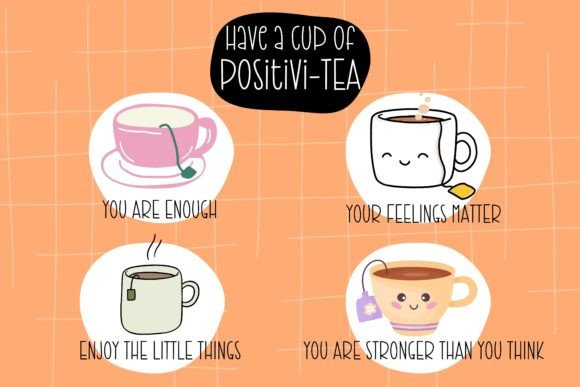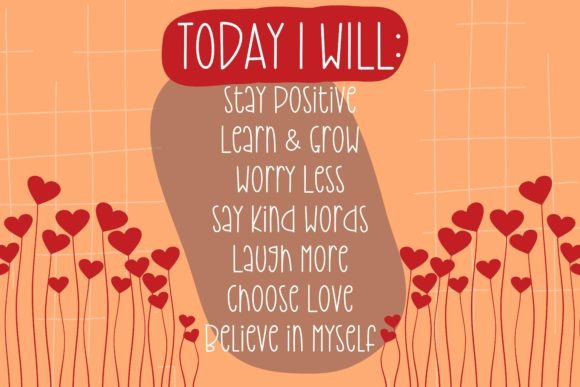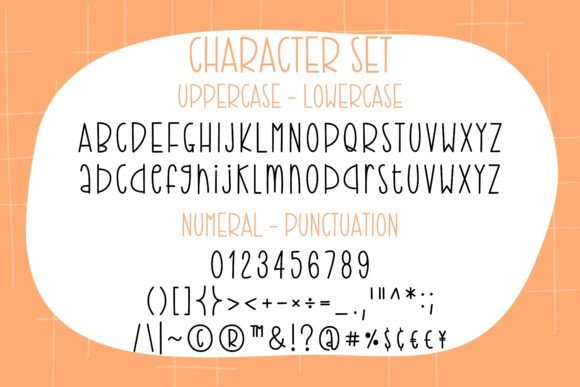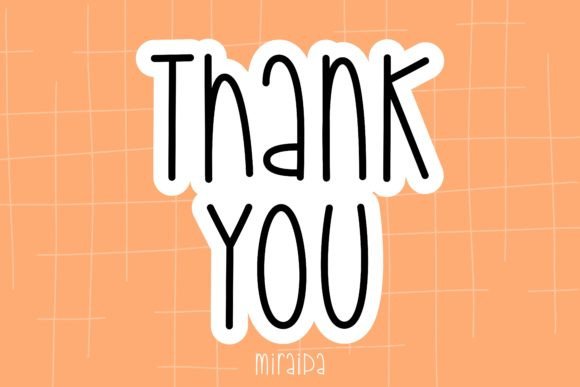
Introducing Awesome Moments Font: Add a Playful Touch to Your Designs
Are you tired of using the same old fonts in your designs? Look no further! Awesome Moments Font is a cute and playful sans serif font that’s sure to bring a smile to your face. Its charming, whimsical, and quirky style makes it perfect for a variety of fun projects. In this article, we’ll explore the features of Awesome Moments Font and how you can use it to take your designs to the next level.
What is Awesome Moments Font?
Awesome Moments Font is a sans serif font designed with a playful and cute style in mind. Its clean lines and rounded edges give it a friendly and approachable feel, making it perfect for designs that require a personal touch. The font is versatile and can be used for a wide range of projects, from party decorations to child-related designs.
Features of Awesome Moments Font
• Cute and Playful Style: Awesome Moments Font is designed to be fun and playful, making it perfect for designs that require a lighthearted touch.
• Sans Serif Font: The font’s clean lines and lack of serifs make it easy to read and versatile for various design applications.
• Charming and Whimsical: The font’s unique style adds a touch of charm and whimsy to any design.
• Quirky and Fun: Awesome Moments Font is perfect for designs that require a bit of personality and flair.
Perfect for Fun Projects
Awesome Moments Font is perfect for a variety of fun projects, including:
• Easter and Spring Designs: Add a playful touch to your Easter and spring designs with Awesome Moments Font.
• Back to School: Make your back to school designs stand out with this fun and playful font.
• Wedding and Party Decorations: Use Awesome Moments Font to create unique and playful wedding and party decorations.
• Halloween and Christmas Designs: Add a touch of whimsy to your Halloween and Christmas designs with this font.
• Posters and Blogs: Use Awesome Moments Font to create eye-catching posters and blog headers.
• Clothing and Child-Related Designs: The font’s playful style makes it perfect for clothing and child-related designs.
• Greeting Cards and Social Media Posts: Use Awesome Moments Font to add a personal touch to your greeting cards and social media posts.
Why Use Awesome Moments Font?
There are many reasons why you should add Awesome Moments Font to your font library:
• Unique Style: The font’s unique style will set your designs apart from the rest.
• Versatility: Awesome Moments Font can be used for a wide range of design applications.
• Easy to Read: The font’s clean lines and sans serif style make it easy to read.
• Fun and Playful: The font’s playful style is sure to bring a smile to your face.
Awesome Moments Font is a unique and playful font that’s perfect for designers and crafters looking to add a personal touch to their designs. Its charming, whimsical, and quirky style makes it versatile for a wide range of fun projects. Whether you’re designing for Easter, back to school, or just want to add a playful touch to your designs, Awesome Moments Font is the perfect choice. So why wait? Add it to your font library today and bring your DIY projects to life!